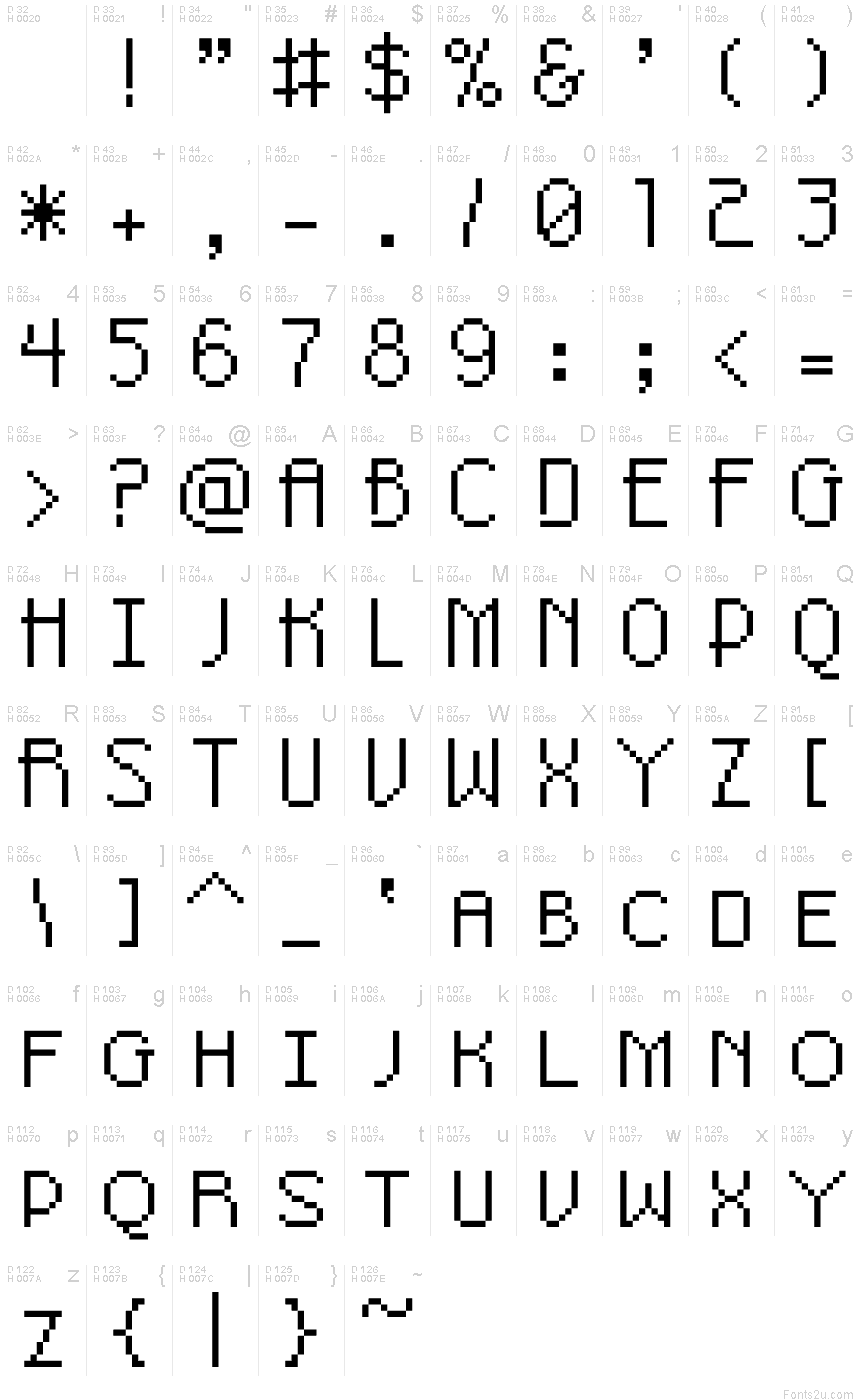
Pixel-Noir Skinny Caps
This font contains 5 different fonts--the main font and 4 variations. I did pixel versions of the 2 most popular noir font styles: the blocky "movie" version and the thin, curved version. There is also a small version which I created specifically for tinier pixel-art.
Note that some of the "rounded" tall caps do have a bit of a blockiness. That was unavoidable given the nature of pixel fonts. However, a little manual anti-aliasing cleans them up very nicely.